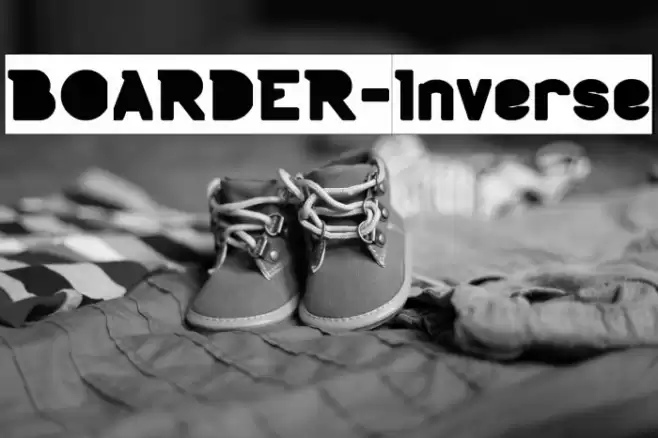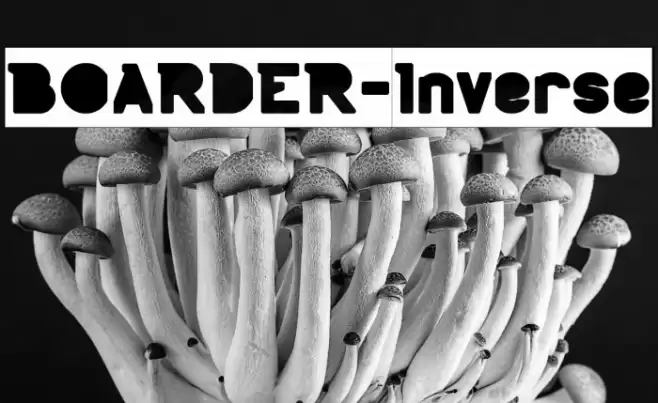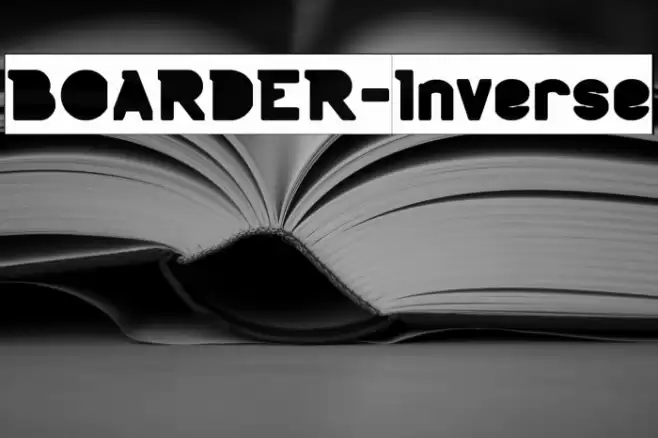
BOARDER-Inverse Font
BOARDER-Inverse Description
This font features bold, blocky characters with a playful and modern aesthetic. Each letter is designed with a unique cut-out style, creating a striking contrast between the solid and negative spaces. The uppercase and lowercase letters maintain a consistent width, giving the font a uniform appearance. The numbers and special characters follow the same design principles, ensuring a cohesive look across all glyphs. Its bold presence makes it ideal for attention-grabbing designs.
A bold, modern font with unique cut-out style and strong visual impact from Uncategorized fonts.
- Proposed Projects: Ideal for posters, headlines, branding, and any project requiring a bold, modern statement.